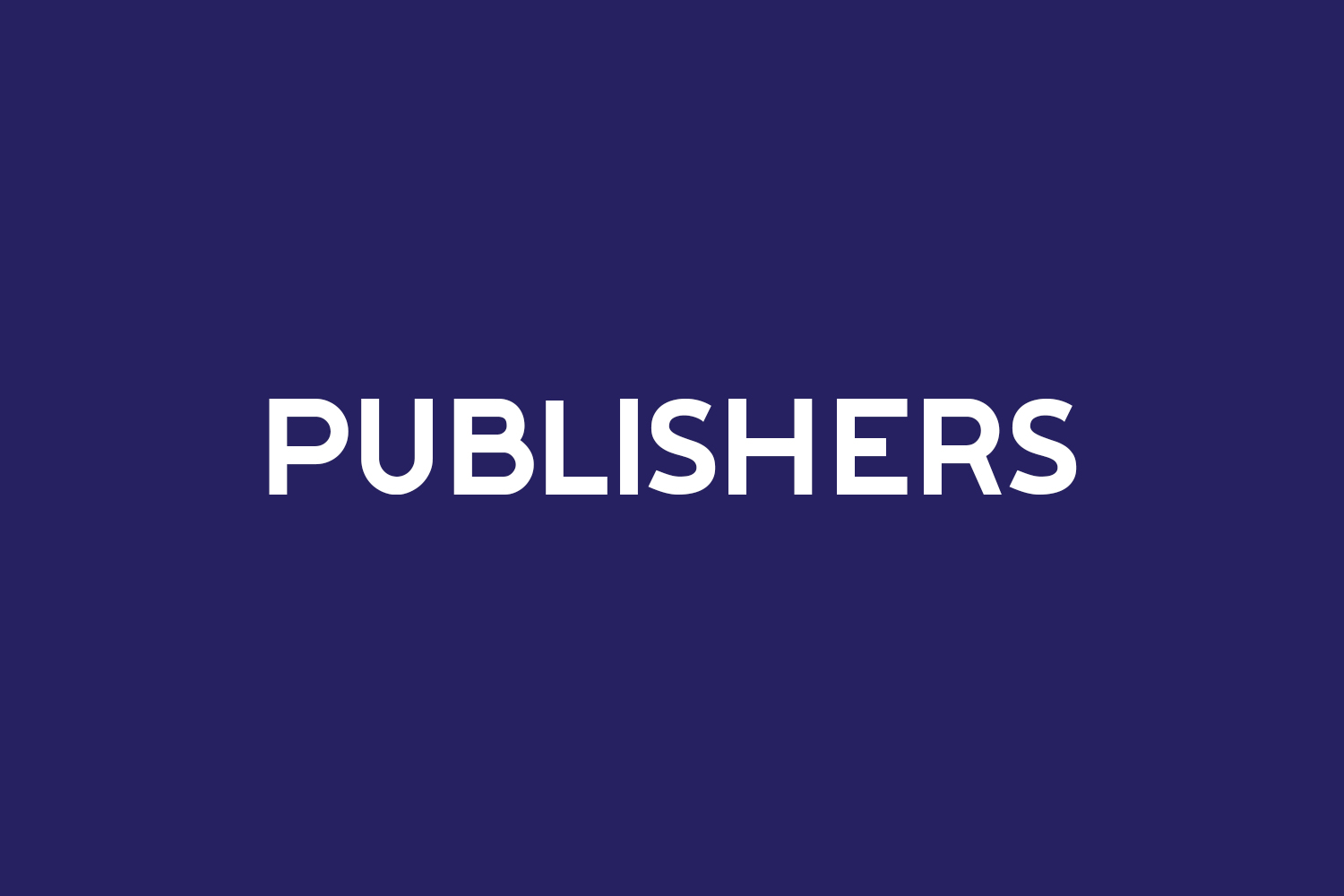
Introducing Publishers Free Font, a sleek Sans Serif font featuring smooth curves and a refined aesthetic. Enhance your designs with this sophisticated typeface, ideal for banners, headlines, and t-shirts. Download the font for free if you need it for personal use or purchase the full version for commercial use.
Designed by Vladimir Nikolic